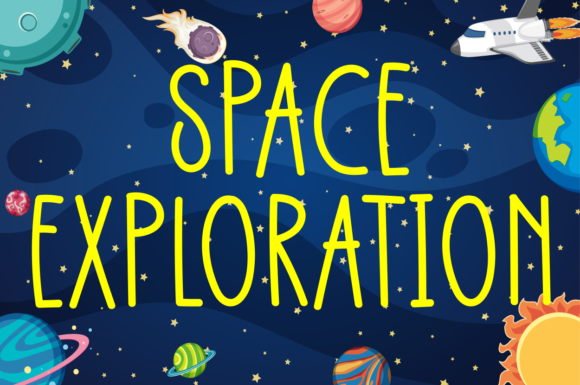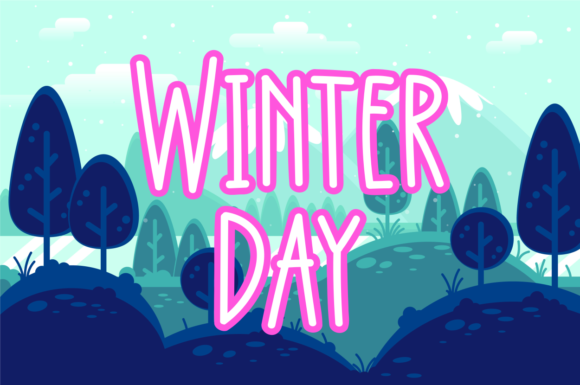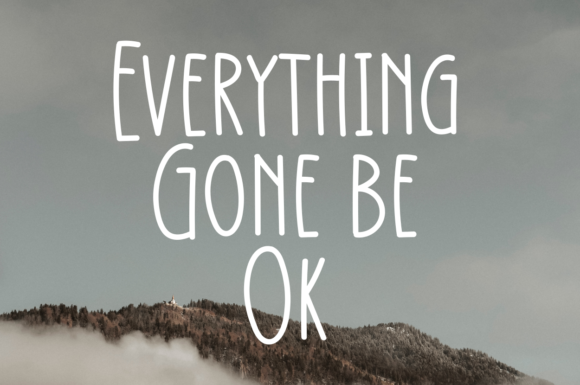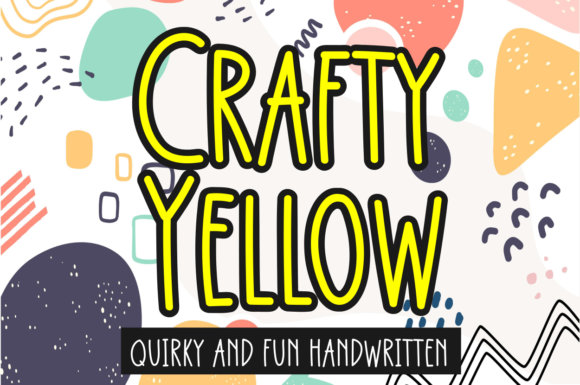
Crafty Yellow Font: Adding a Lovely Touch to Your Designs
Are you looking for a font that can add a playful and quirky touch to your designs? Look no further than Crafty Yellow Font. This readable and charming handwritten font is perfect for a variety of projects, from cartoon-related designs to children’s games and more. In this article, we’ll take a closer look at Crafty Yellow Font and explore its features, benefits, and uses.
What is Crafty Yellow Font?
Crafty Yellow Font is a unique and eye-catching handwritten font that is designed to add a personal touch to your designs. Its quirky and playful style makes it perfect for projects that require a bit of whimsy and fun. The font is highly readable, making it suitable for use in a variety of contexts, from digital designs to print materials.
Features of Crafty Yellow Font
Crafty Yellow Font has several features that make it an excellent choice for designers and crafters. Some of its key features include:
- Readability: Crafty Yellow Font is highly readable, even at small sizes, making it perfect for use in a variety of contexts.
- Quirky style: The font has a unique and quirky style that adds a playful touch to any design.
- Handwritten look: Crafty Yellow Font has a handwritten look that gives it a personal and friendly feel.
- Versatility: The font is versatile and can be used in a variety of projects, from digital designs to print materials.
Benefits of Using Crafty Yellow Font
There are several benefits to using Crafty Yellow Font in your designs. Some of the benefits include:
- Unique look: Crafty Yellow Font has a unique look that sets it apart from other fonts, making your designs stand out.
- Emotional connection: The font’s playful and quirky style can help create an emotional connection with your audience.
- Flexibility: Crafty Yellow Font can be used in a variety of contexts, from children’s designs to more serious projects.
Uses of Crafty Yellow Font
Crafty Yellow Font is a versatile font that can be used in a variety of projects. Some of the uses of the font include:
- Cartoon-related designs: The font’s playful and quirky style makes it perfect for cartoon-related designs.
- Children’s games: Crafty Yellow Font is a great choice for children’s games, as it is easy to read and adds a fun touch.
- Crafting projects: The font is perfect for crafting projects, such as scrapbooking, card making, and more.
- Digital designs: Crafty Yellow Font can be used in digital designs, such as social media graphics, blog posts, and more.
Tips for Using Crafty Yellow Font
Here are some tips for using Crafty Yellow Font in your designs:
- Use it sparingly: While Crafty Yellow Font is a fun and playful font, it can be overwhelming if used too much. Use it sparingly to add a touch of whimsy to your designs.
- Pair it with other fonts: Crafty Yellow Font pairs well with other fonts, such as sans-serif fonts. Experiment with different font combinations to find the perfect look for your design.
- Experiment with colors: The font’s yellow color is a great starting point, but don’t be afraid to experiment with other colors to find the perfect look for your design.
Crafty Yellow Font is a unique and versatile font that can add a playful and quirky touch to your designs. Its readability, quirky style, and handwritten look make it perfect for a variety of projects, from cartoon-related designs to children’s games and more. With its ease of use and flexibility, Crafty Yellow Font is a great choice for designers and crafters looking to add a lovely touch to their creations.